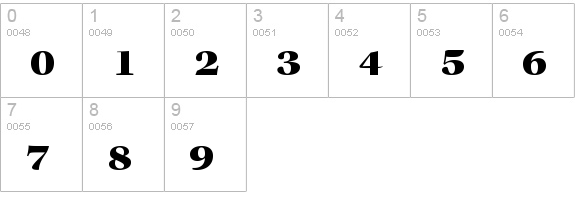
Kepler Std Black Extended is a maximum-weight, dramatic, extended-width variant in the Kepler typeface family \xE2\x80\x94 well suited to maximum-impact headlines, posters, and packaging.
Kepler Std Black Extended font is a bold and impactful typeface that exudes power and confidence. With its extended letterforms, this font commands attention and makes a statement in any design project. The thick strokes and sharp angles give it a strong and modern aesthetic, perfect for headlines, titles, and branding materials. What sets Kepler Std Black Extended font apart is not only its striking appearance but also its accessibility. This font is freely available to download at FontsMarket.com, making it easy for designers and creatives to add a touch of sophistication to their projects without breaking the bank. Whether you're designing a bold magazine cover, a sleek poster, or a stylish packaging, Kepler Std Black Extended font will bring your words to life with its bold presence and contemporary appeal. Its versatility allows it to be used in a wide range of design applications, from print to digital. With its free availability and professional quality, Kepler Std Black Extended font is a must-have addition to any designer's toolkit. So why wait? Download this stunning font today from FontsMarket.com and let your creativity soar with the power and elegance of Kepler Std Black Extended font.